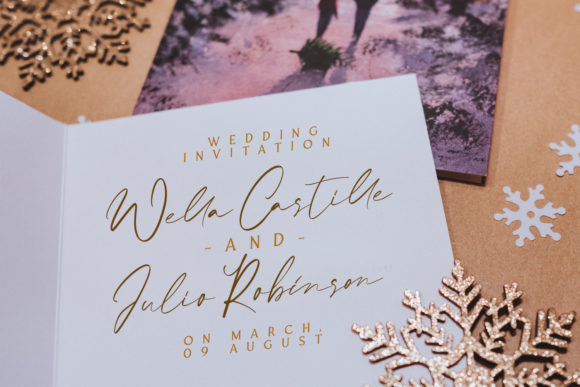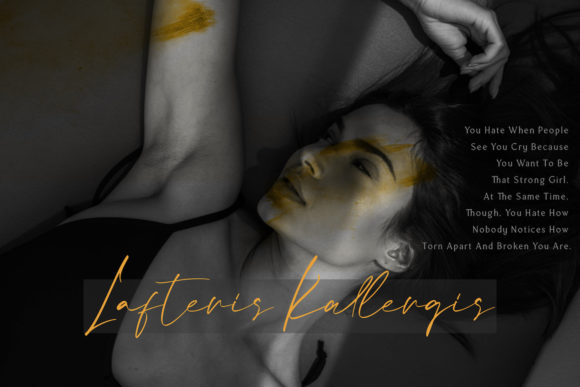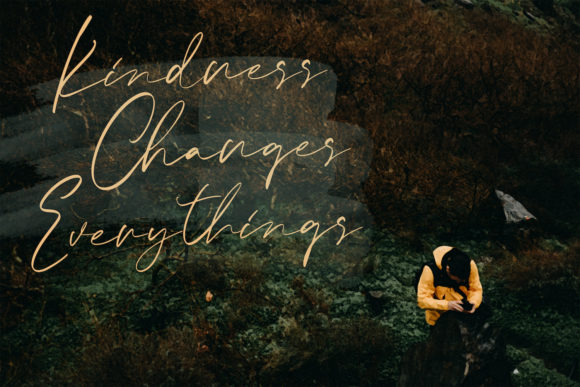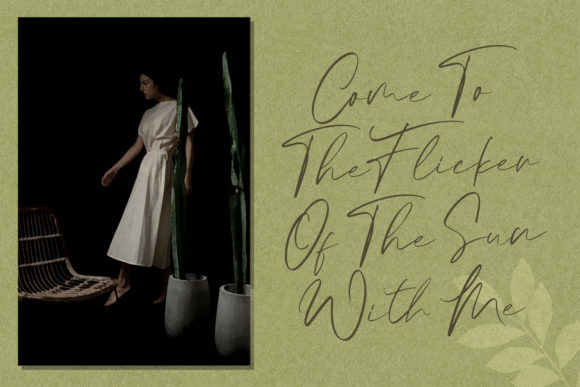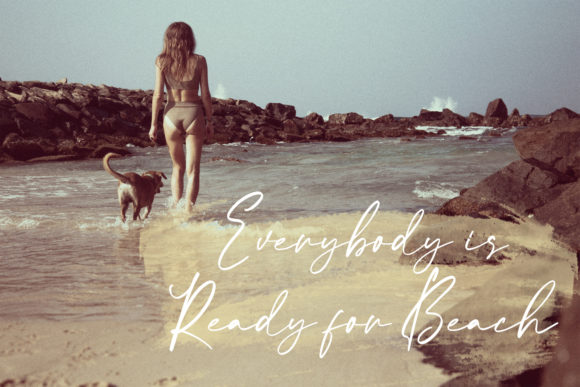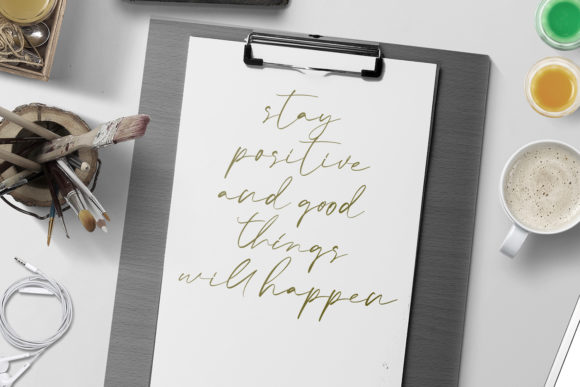
The Quest for the Perfect Font: How Calvin Fallen Stole My Heart
I still remember the frustration of scrolling through font after font, searching for the perfect one to bring my DIY project to life. As a designer, I’ve had my fair share of font dilemmas, but one font that has stuck with me is Calvin Fallen. This beautiful script font has an incredibly endearing and authentic feel that makes it a standout in any design.
An Honest Review of Calvin Fallen
- ✨ The elegant, cursive strokes that give it a sophisticated yet approachable feel
- ✅ The versatility to work well in both digital and print designs
- 💕 The unique character that sets it apart from more generic fonts
- 🎨 The range of OpenType features that allow for creative experimentation
While Calvin Fallen is an amazing font, it’s not without its quirks. ⚠️ Some users may find that the font can be a bit finicky when it comes to kerning, especially when using it in larger sizes. 🤔 Additionally, the font may not be the best choice for very long blocks of text, as it can start to feel a bit ornate.
The Story Behind Calvin Fallen
Calvin Fallen was designed with the intention of creating a font that felt both elegant and approachable. The designer wanted to create a font that would be perfect for DIY projects, wedding invitations, and other special occasions. With its unique character and range of OpenType features, Calvin Fallen is sure to become a favorite among designers and crafters alike.
A: Calvin Fallen is a versatile font that can be used in a variety of designs, from DIY projects to wedding invitations. Experiment with different OpenType features and glyphs to find the look that works best for your project.
A: While Calvin Fallen is a beautiful font, it may not be the best choice for very long blocks of text. It’s better suited for shorter texts, such as headings, titles, and captions.